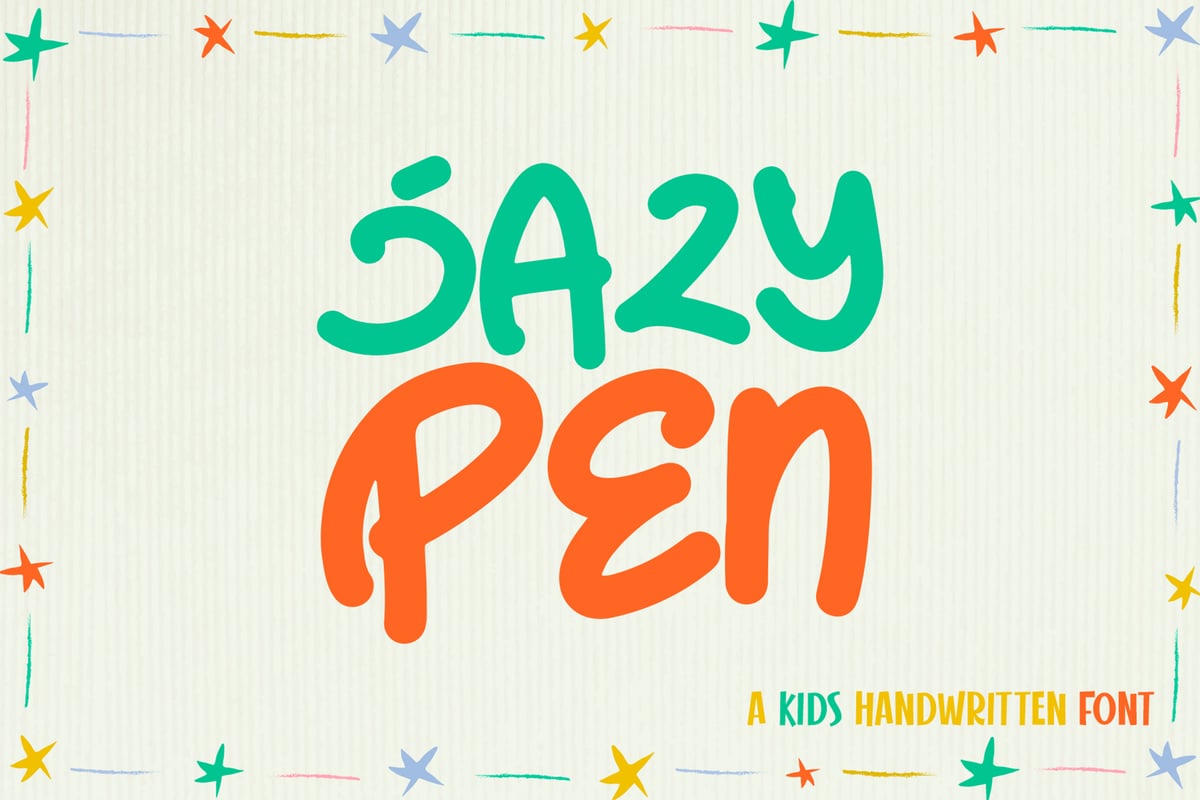
Jazy Pen
Bring playful creativity to your designs with Jazy Pen, a delightful kids' handwritten font that radiates fun and imagination. This font is perfect for capturing the innocence and charm of youthful expression. Jazy Pen is your go-to choice for spreading happiness and creating designs that connect with young hearts and playful spirits!